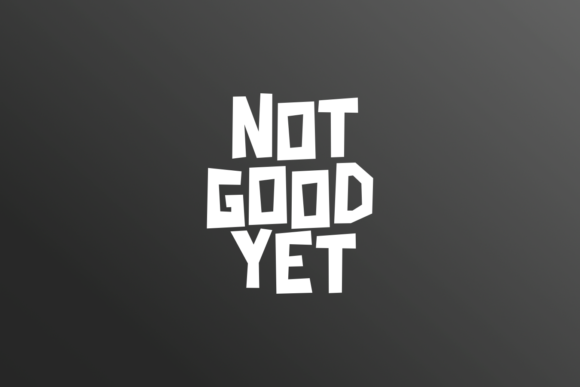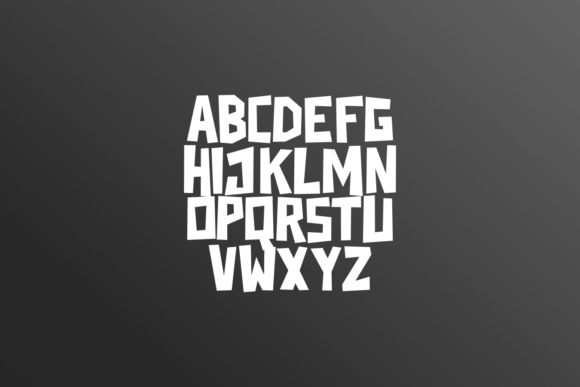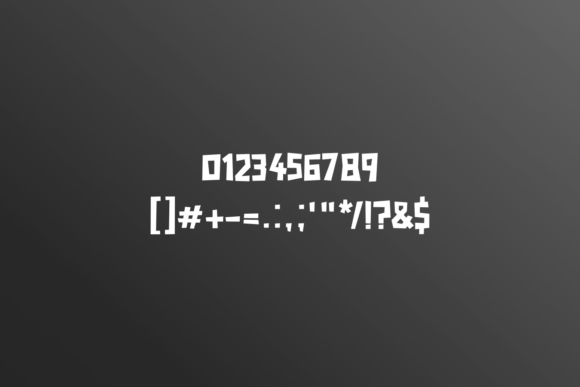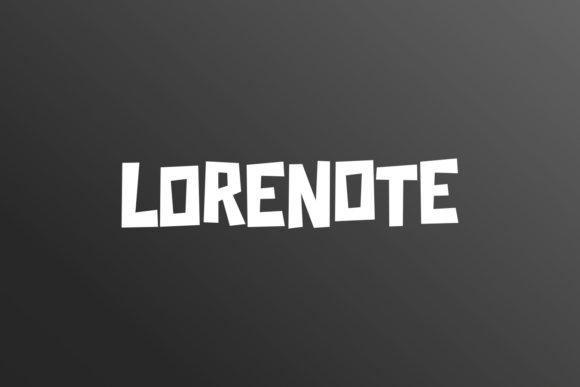
Introduction to Pungkirs Font
Have you ever found yourself stuck in a creative rut, desperately searching for the perfect font to elevate your design project? You’re scrolling through font libraries, browsing through design resources, and downloading high-quality fonts in the hopes of finding that elusive spark. Well, we’ve got some exciting news for you! Introducing the Pungkirs Font, a dynamic and playful all-caps font that’s sure to bring a modern touch to your next creative project.
What sets Pungkirs apart from other fonts is its unique blend of modern style and playful charm. With a transparent background and a range of creative possibilities, this font is perfect for designers looking to add a touch of whimsy to their designs. Whether you’re working on a website description, a title, or any other type of design, Pungkirs Font is the perfect addition to your design resource library.
Honest Review: Pungkirs Font
I recently came across Pungkirs Font while searching for a unique design resource to enhance my creative project. The font’s free download option was a major draw, and I was excited to see how it would perform in my design.
One of the standout features of Pungkirs Font is its high quality and versatility. It works well for a variety of design applications, from logos and branding to digital art and typography projects. The font’s clean and modern aesthetic makes it a great addition to any design.
Here are some of the things that work well with Pungkirs Font:
- ✨ Unique and modern design aesthetic
- ✨ High quality and clear typography
However, I did encounter a few limitations with Pungkirs Font:
- ⚠️ Limited character set and language support
- ⚠️ May not be suitable for complex or large-scale design projects
Overall, I’m impressed with Pungkirs Font and would recommend it to designers looking for a unique and high-quality design resource. With a little creativity, the limitations of this font can be easily worked around.
Tips for Getting the Most Out of Pungkirs Font
To get the most out of the Pungkirs Font, use it in conjunction with other design elements to create visually appealing designs. Experiment with different font sizes and styles to find the perfect combination for your project.
Common Use Cases for Pungkirs Font
The Pungkirs Font is commonly used in various creative projects, including logos, social media graphics, and posters. Its high-quality design makes it an ideal choice for any project requiring a unique and eye-catching font.
Can I customize the Pungkirs Font to fit my specific design needs?
Yes, the Pungkirs Font is highly customizable, allowing you to adjust the font’s size, color, and style to fit your specific design needs. You can also use the font in combination with other design elements, such as graphics and images, to create a unique and eye-catching design.